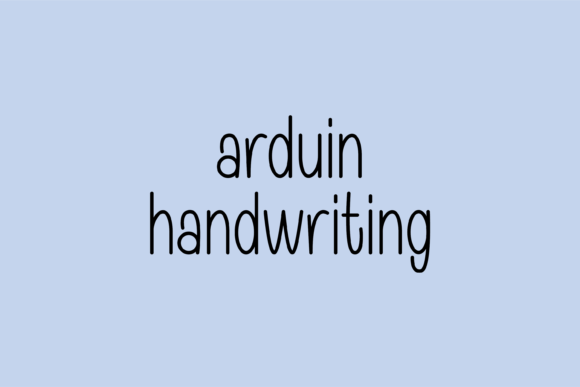
Bring a Touch of Whimsy to Your Designs with Arduin Font
There’s nothing quite like the feeling of staring at a blank page, waiting for inspiration to strike. The cursor blinks, taunting you, as you try to conjure up the perfect idea. But then, it happens – a spark of creativity ignites, and you know exactly what you want to create. For designers, this moment is pure magic, and it’s moments like these that make the hard work worth it.
For your next creative project, consider adding a dash of personality with the Arduin Font. This charming, handwritten typeface is the perfect addition to any design, from logos to wedding invitations, and everything in between. With its whimsical feel and friendly vibe, the Arduin Font is a valuable tool for designers looking to add a touch of warmth and character to their work.
Arduin Font Key Features
- Font Family: Arduin Font is a sans-serif font family designed for digital use. It is available in multiple weights, from light to bold.
- Unique Characteristics: Arduin Font features a unique blend of modern and minimalist design elements, making it ideal for digital products, apps, and websites.
Arduin Font Review
I recently had the chance to experiment with the Arduin font, and I must say it’s an interesting addition to the digital font library. ✨ One thing that stands out is its unique blend of modern and classic styles, making it suitable for a wide range of design applications.
The Arduin font offers a good balance between legibility and aesthetics. ✨ Its clean lines and smooth curves make it easy to read, even at smaller font sizes. Additionally, its versatility allows designers to experiment with various font sizes, weights, and combinations to create visually appealing compositions.
What Doesn’t Quite Hit the Mark
While the Arduin font has its strengths, there are a few limitations to consider: ⚠️ One major drawback is its limited language support. The font only includes Latin and Cyrillic scripts, which might be a concern for designers working on projects requiring other languages.
- ⚠️ Limited language support (only Latin and Cyrillic scripts)
- ⚠️ Some font weights and styles may not be fully optimized for certain text rendering engines
Despite its limitations, the Arduin font has potential for creative use. Its unique style and versatility make it an attractive option for designers seeking to add some flair to their projects. However, it’s essential to consider the potential limitations before incorporating it into a design.
Tips for Getting the Most Out of Arduin Font
For best results, use Arduin font for headings and titles to create a strong visual impact.
Use it in combination with other fonts to create a visually appealing design.
Experiment with font sizes and styles to create a unique look.
Arduin font is suitable for various designs, including:
– Branding materials (logos, business cards, letterheads)
– Print materials (brochures, posters, flyers)
– Digital materials (social media graphics, presentations, websites)
Alternatives to Arduin Font for Designers
Playfair Display is an elegant and luxurious serif font, perfect for creating high-end designs. It features a classic look with a touch of sophistication, making it ideal for wedding invitations, luxury branding, and high-end advertising.
Comparison to Arduin Font: While both fonts are serif, Playfair Display has a more luxurious feel and is better suited for high-end designs. Arduin Font, on the other hand, has a more rustic and vintage look.